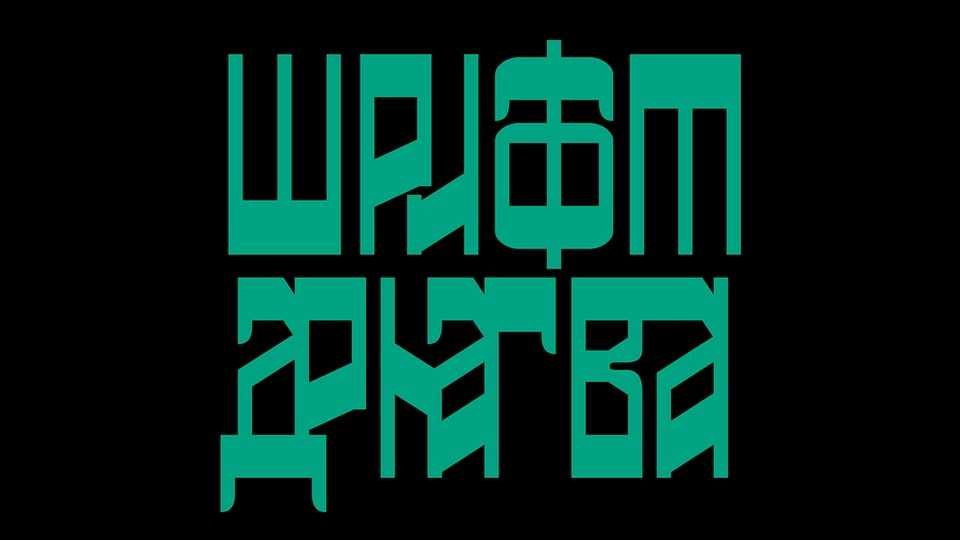
Download Driagwa font, an experimental variable typeface based on Slavic Vyas, inspired by samples from typographic catalogues and advertising posters of the late 19th – early 20th centuries.
Designer: Dmitry Chekanov